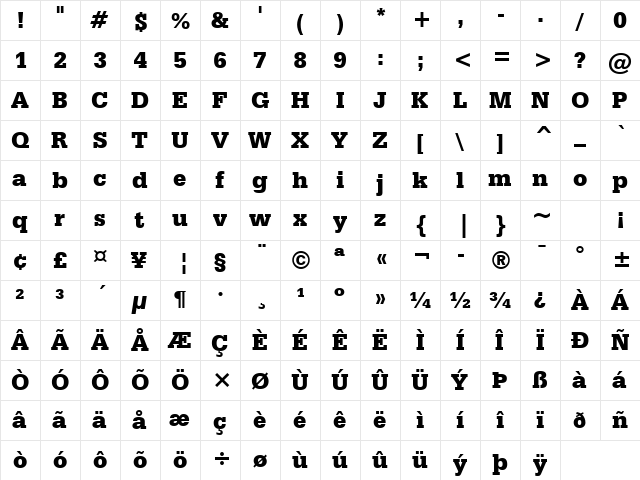
Serifa Black
Design Context for Serifa Typeface
Serifa carries the refined structure of traditional serif typography, with bracketed terminals and considered proportions that communicate credibility and craft.
Pro Tip: Set Serifa with slightly loose tracking in headlines to let each letterform's detail read clearly at display sizes.